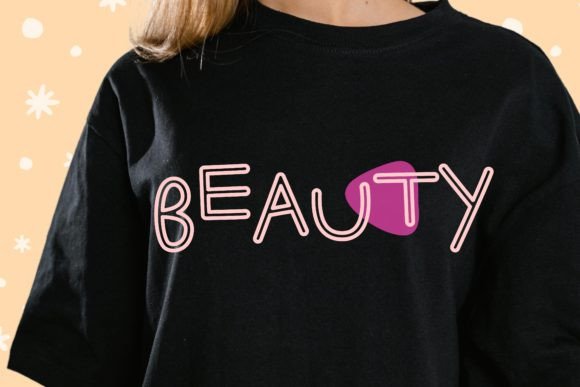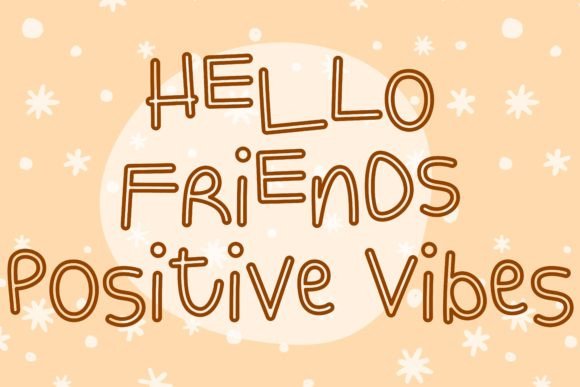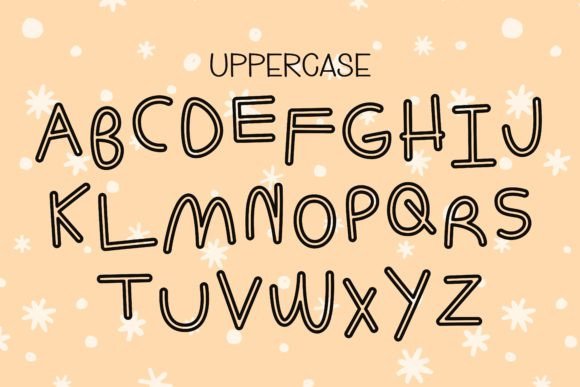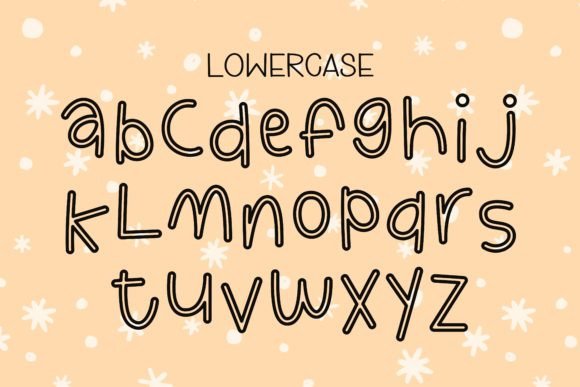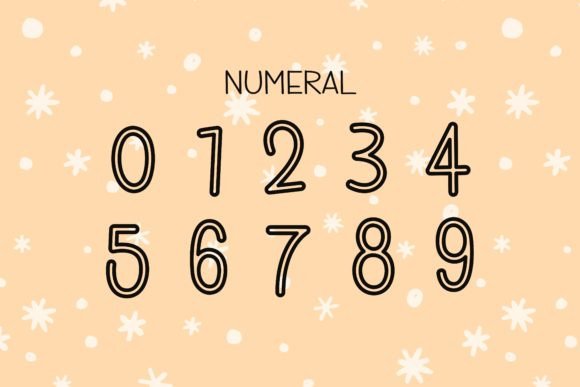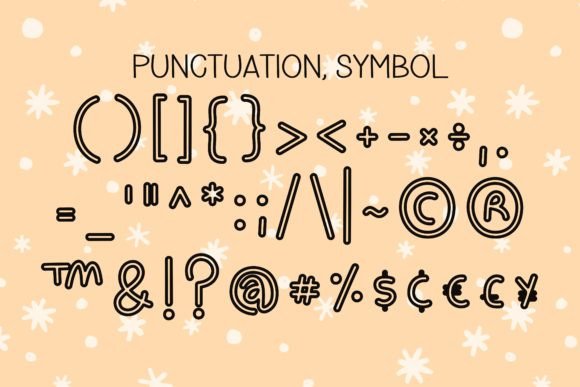
Introducing Cutie Love Font: The Perfect Addition to Your Fun and Creative Projects
Are you tired of using the same old fonts for your projects? Do you want to add a touch of cuteness and playfulness to your designs? Look no further than Cutie Love Font! This adorable font is designed to bring a smile to your face and a spark to your creativity. In this article, we’ll dive into the world of Cutie Love Font and explore its features, uses, and benefits for designers and crafters.
What is Cutie Love Font?
Cutie Love Font is a unique and charming font style that is perfect for projects that require a fun and youthful touch. Its cute and adorable design makes it an excellent choice for a wide range of applications, from children’s party decorations to back-to-school materials, and even social media graphics.
Key Features of Cutie Love Font
- Cute and Adorable Design: Cutie Love Font is designed to be visually appealing and endearing, making it perfect for projects that require a touch of whimsy and playfulness.
- Versatile: This font can be used for a wide range of projects, from digital designs to print materials, and even handmade crafts.
- Easy to Read: Despite its playful design, Cutie Love Font is easy to read, making it perfect for use in titles, headings, and body text.
- Fun and Creative: Cutie Love Font is designed to inspire creativity and fun, making it an excellent choice for projects that require a lighthearted and imaginative approach.
Uses for Cutie Love Font
Cutie Love Font is perfect for a wide range of projects, including:
- Back to School Materials: Add a touch of fun and excitement to your back-to-school designs with Cutie Love Font.
- Birthday Party Decorations: Use Cutie Love Font to create adorable birthday party decorations, such as invitations, banners, and garlands.
- Children’s Party Themes: Cutie Love Font is perfect for creating themed party materials, such as cupcake toppers, party hats, and more.
- Social Media Graphics: Add a touch of whimsy and fun to your social media graphics with Cutie Love Font.
- Handmade Crafts: Use Cutie Love Font to add a personal touch to your handmade crafts, such as scrapbooking, card making, and more.
Cutie Love Font offers a range of benefits for designers and crafters, including:
- Increased Creativity: Cutie Love Font is designed to inspire creativity and fun, making it an excellent choice for designers and crafters looking to try new things.
- Time-Saving: With Cutie Love Font, you can quickly and easily add a touch of cuteness and playfulness to your designs, saving you time and effort.
- Unique and Eye-Catching Designs: Cutie Love Font is sure to make your designs stand out from the crowd, with its unique and eye-catching design.
| Font Name | Cutie Love Font |
| Author | MRP STUDIO |
In conclusion, Cutie Love Font is a unique and charming font style that is perfect for designers and crafters looking to add a touch of cuteness and playfulness to their projects. With its versatile design, ease of use, and range of applications, Cutie Love Font is sure to become a favorite in your design toolkit. So why not give it a try and see how it can add a spark to your creative ideas?